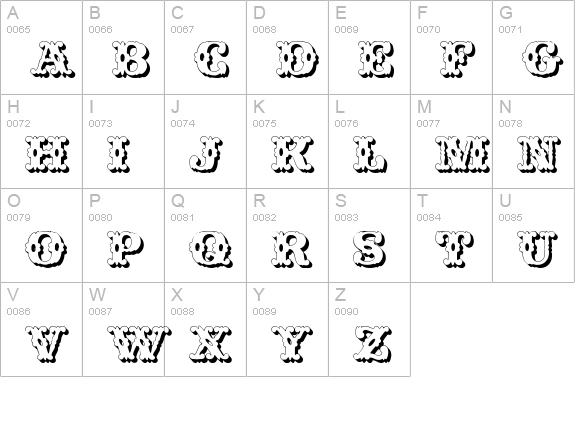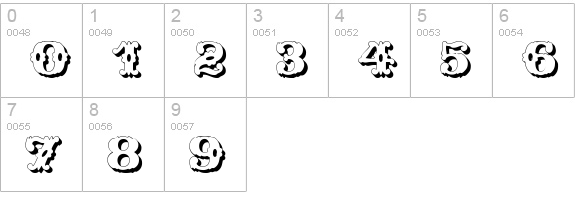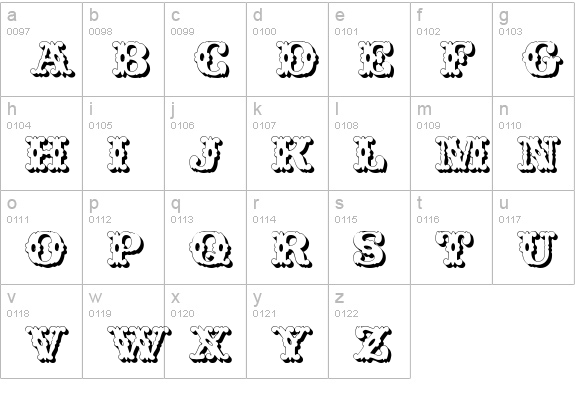
Introducing Wild West Shadow font, an exquisite typeface that captures the essence of the rugged and adventurous Wild West era. This font is sure to transport you back to a time of saloons, cowboys, and daring escapades. With its bold and striking aesthetic, Wild West Shadow font is perfect for creating eye-catching headlines, posters, and branding materials that demand attention. What sets Wild West Shadow font apart is its unique shadow effect, which adds depth and dimension to your designs. The carefully crafted shadows create a sense of mystery and intrigue, bringing your words to life in a captivating and memorable way. Whether you're designing a vintage-inspired logo or a Western-themed event invitation, this font is guaranteed to make a lasting impression. And the best part? Wild West Shadow font is free! That's right, it is freely available to download at FontsMarket.com. We believe that great design shouldn't come at a cost, and we want to empower creators like you to bring your visions to life without any barriers. So go ahead, unleash your creativity and download Wild West Shadow font today. With its wide range of characters and extensive language support, Wild West Shadow font is versatile and adaptable to any project. Its clean and legible letterforms ensure readability, while its stylish and unique aesthetic adds a touch of authenticity to your designs. Whether you're designing for print or digital media, this font will effortlessly elevate your work to new heights. So saddle up and embark on a typographic journey through the Wild West with Wild West Shadow font. Embrace the spirit of adventure, push the boundaries of design, and create standout visuals that leave a lasting impression. Download Wild West Shadow font at FontsMarket.com and let your creativity run wild.